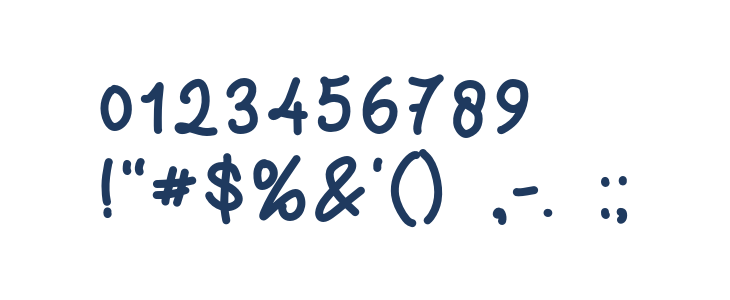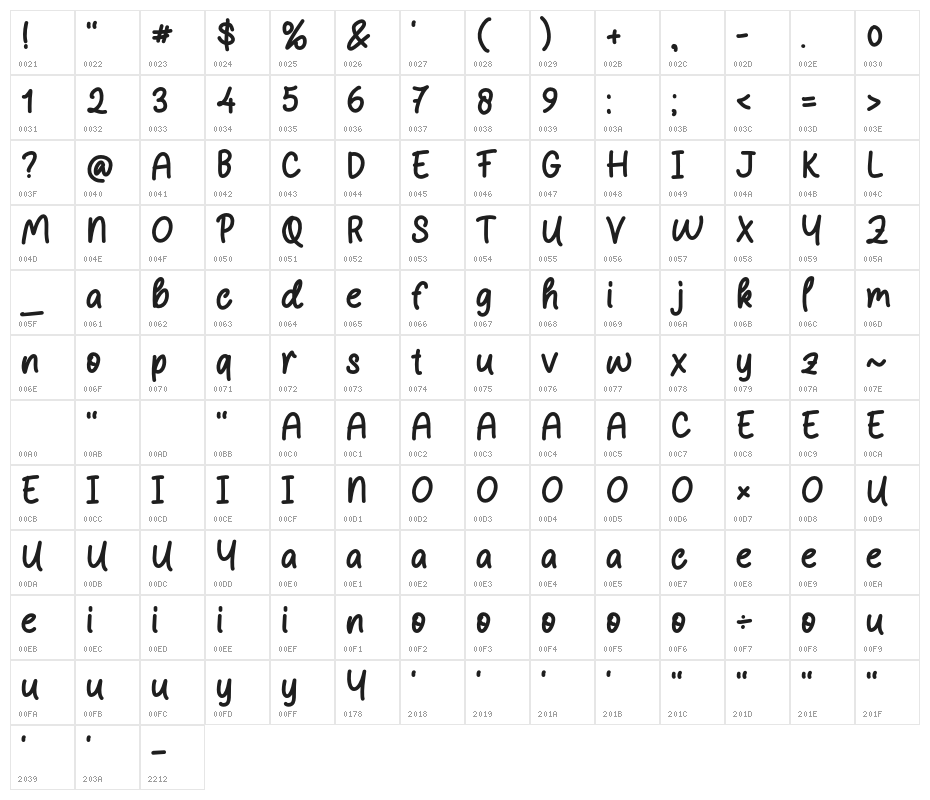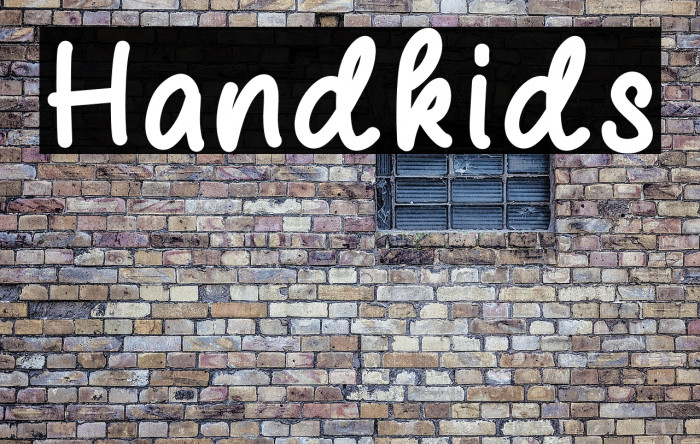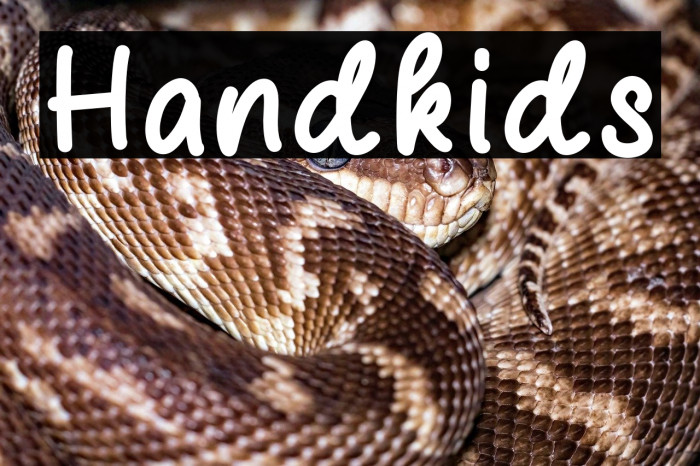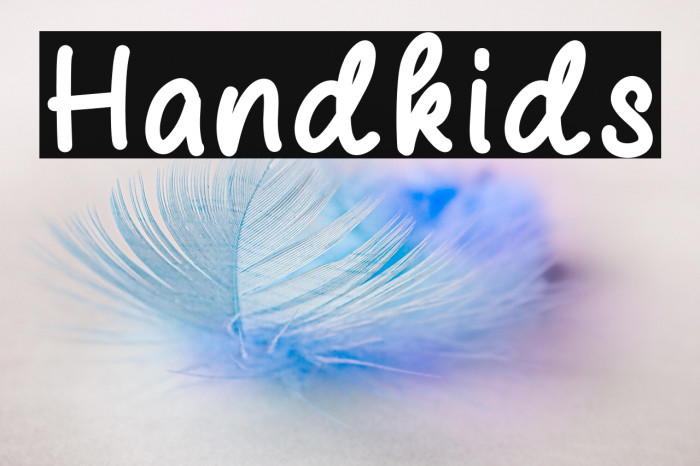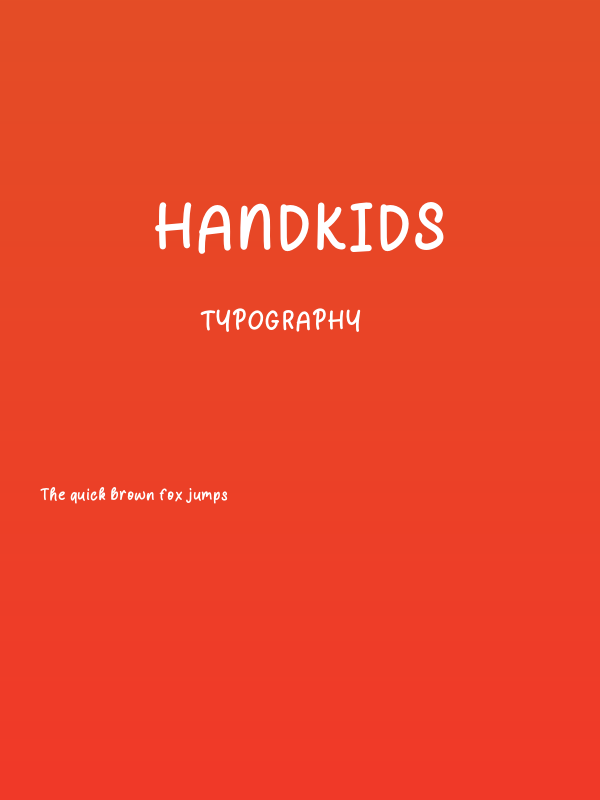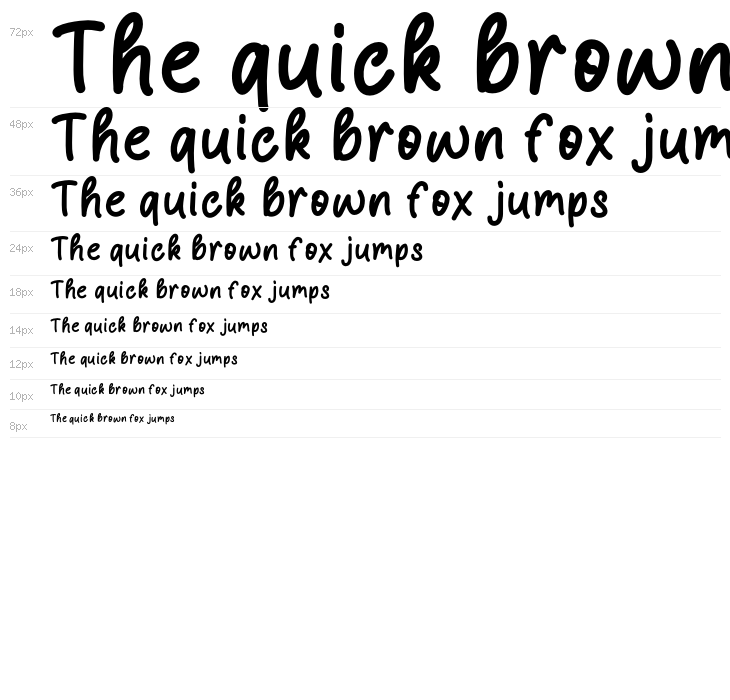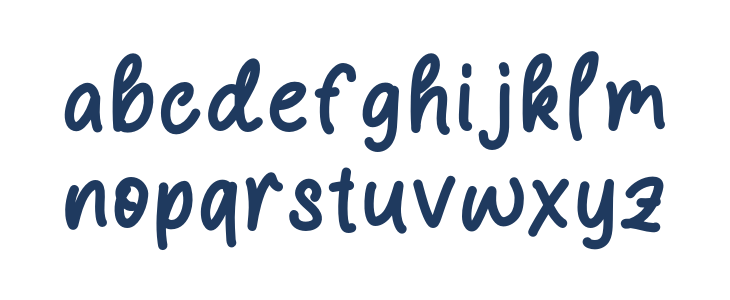
Handkids Font
Handkids Description
This playful and whimsical font exudes a handwritten charm, reminiscent of a child's playful scrawl. The letters are rounded and slightly irregular, giving it a casual and friendly appearance. The uppercase and lowercase letters maintain a consistent style, with a slight tilt that adds to its informal nature. The numerals and special characters follow the same playful aesthetic, making it versatile for various creative projects. The strokes are bold and consistent, ensuring readability while maintaining its unique character.
| Overall Style | Playful, Casual |
| Use Case | Headlines, Logos, Informal Text |
| Proposed Projects | Ideal for children's books, playful branding, greeting cards, and educational materials. |